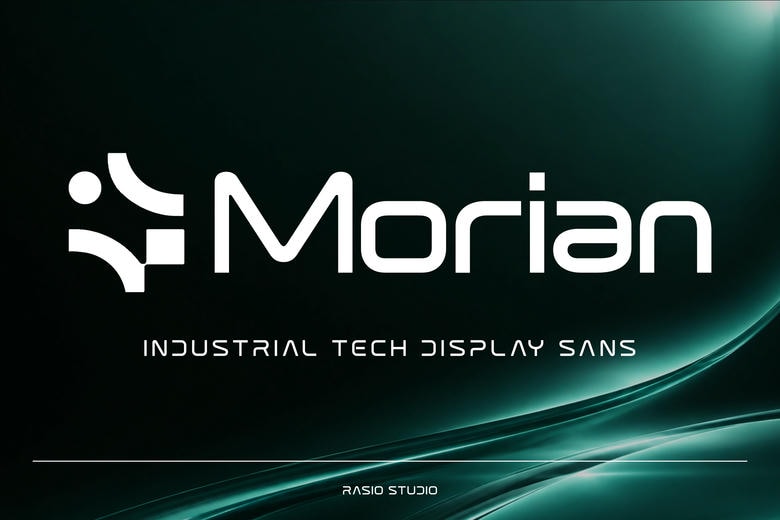
Morian Font
Morian is a modern, industrial-style sans-serif font made for the future of branding. It works especially well for tech startup logos, gaming headers, futuristic user interfaces, software, automotive graphics, robotics packaging, and sci-fi movie posters.
Morian Sans Serif Font